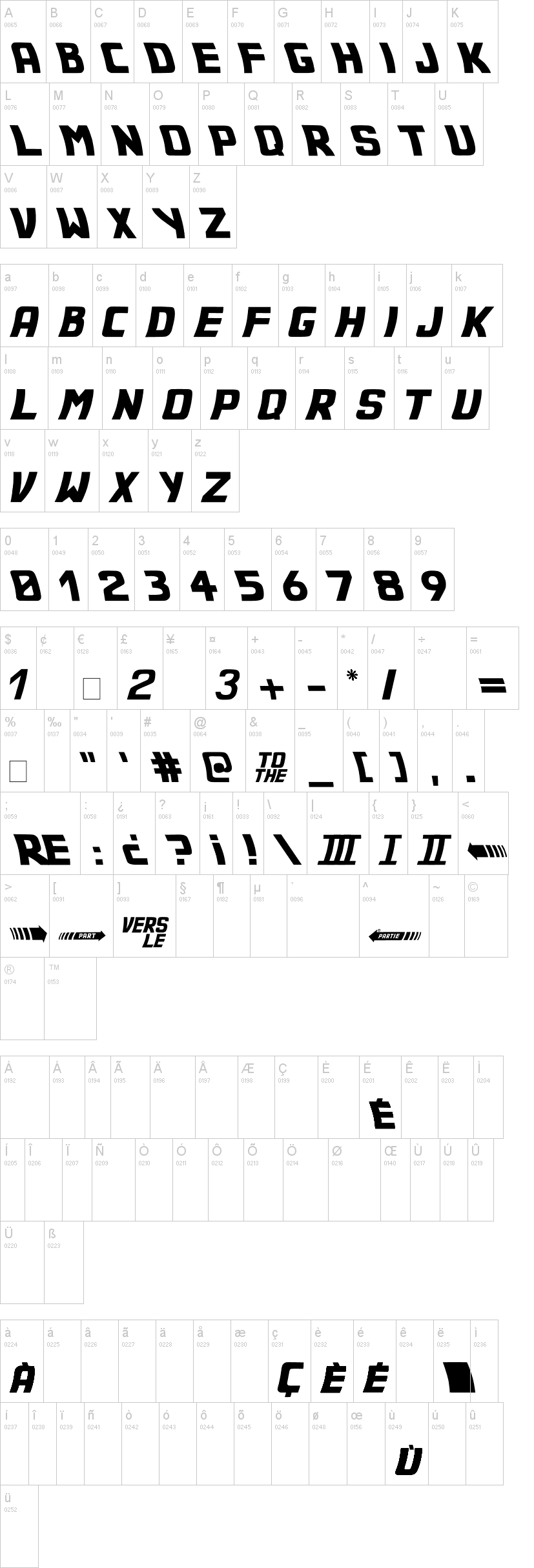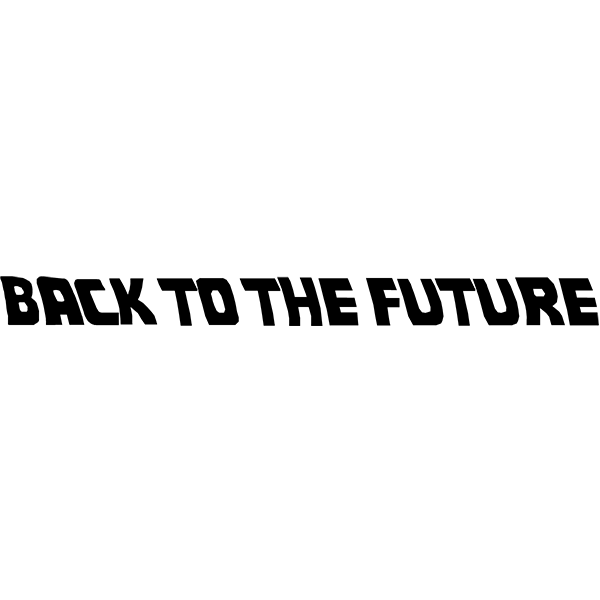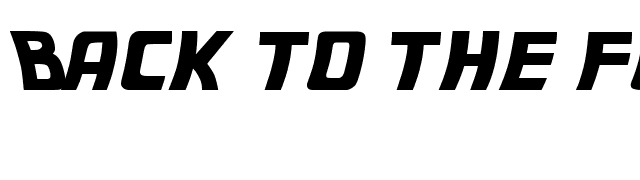
Back To The Future Font Name
Back To The Future Font Name. Download 80s font for zoolook 1980 album cover: This font is a true representation of the text in the original movie logo.
Your question came up while i was searching for the title font. Fox as teen marty mcfly, who by accident travels returned in time to 1955, in which he meets his future parents and will become his mother’s romantic interest. Back to the future font is created for any luxury design projects such as headlines, product packaging, billboard, branding, games, movie, apps, and so on.